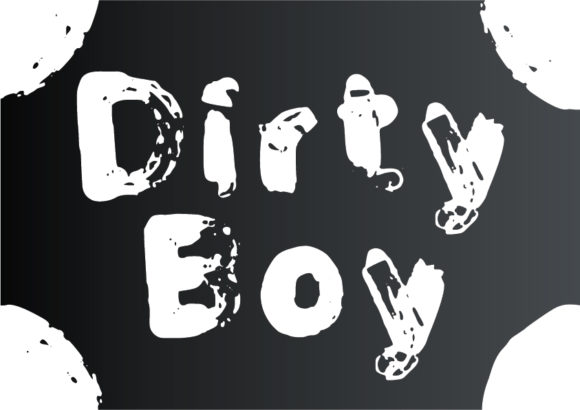
In the vibrant world of typography, there's a captivating rebel that breaks the mold, a renegade with a swagger that demands attention - Dirty Boy Font. This graffiti-inspired masterpiece isn't just a font; it's an attitude, a defiant declaration of individuality that refuses to blend in.
Crafted by the skilled hands of GraphicsBam Fonts, Dirty Boy Font is an exquisite display font, a dance of sharp angles and playful curves, bold strokes that burst with confidence. It's like a rebellious spirit trapped in the confines of pixels, yearning to break free and tag the world with its distinctive style.
Whether you're designing posters that scream for attention, crafting logos that leave a lasting impression, or creating online content that captivates your audience, Dirty Boy Font is your weapon of choice. Unleash its raw energy on your projects and watch them transform from ordinary to extraordinary, from mundane to mesmerizing.
With Dirty Boy Font, you're not just downloading a font; you're embracing a movement, a rebellion against the mundane. You're declaring your independence from the bland and the boring, daring to stand out and make a statement.
So, join the Dirty Boy revolution, let your creativity run wild, and witness the transformation of your designs into masterpieces. Let the world see your individuality, your defiance, and your unyielding spirit through the strokes of this remarkable font.